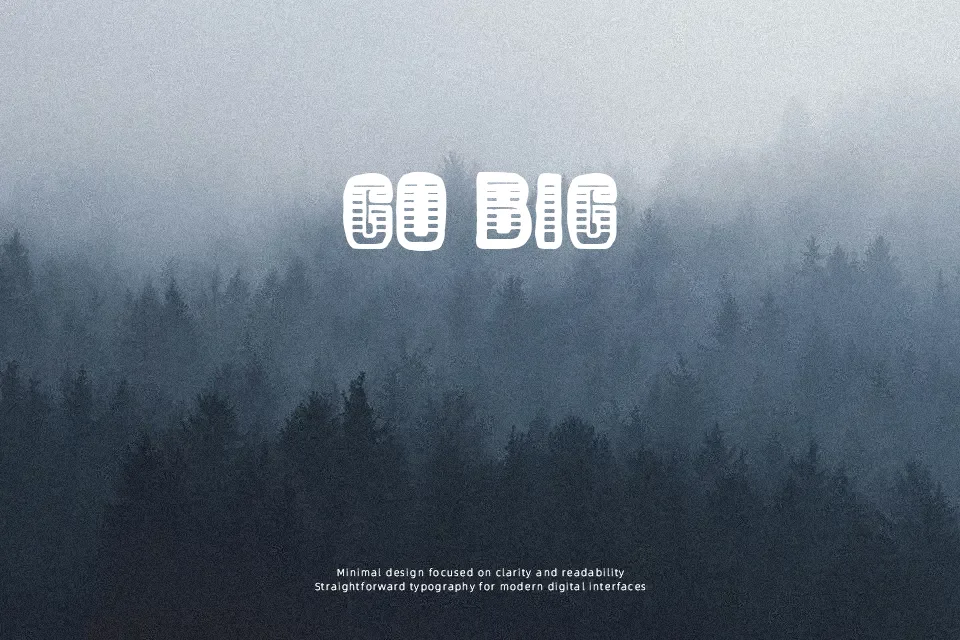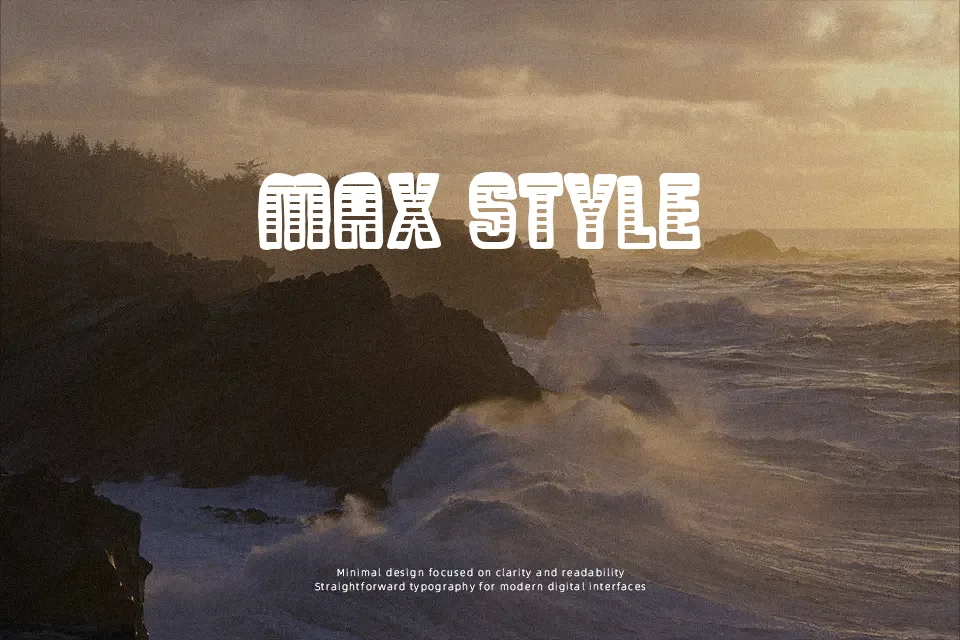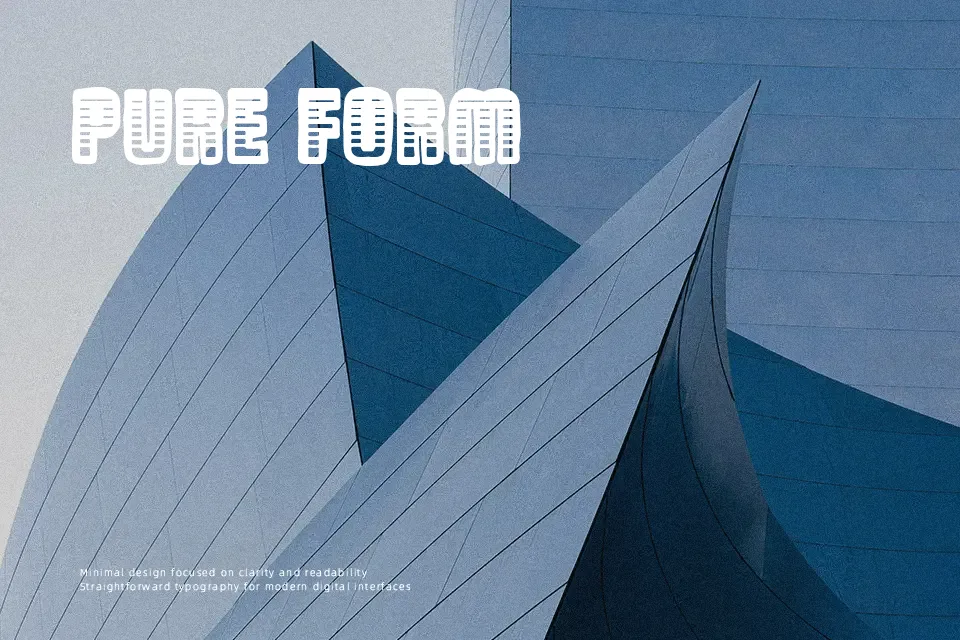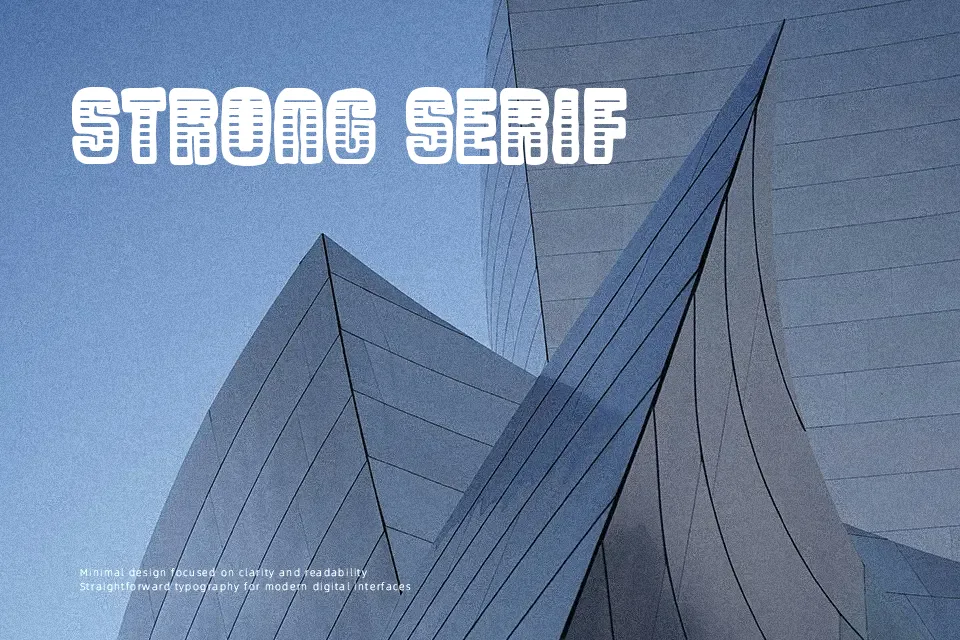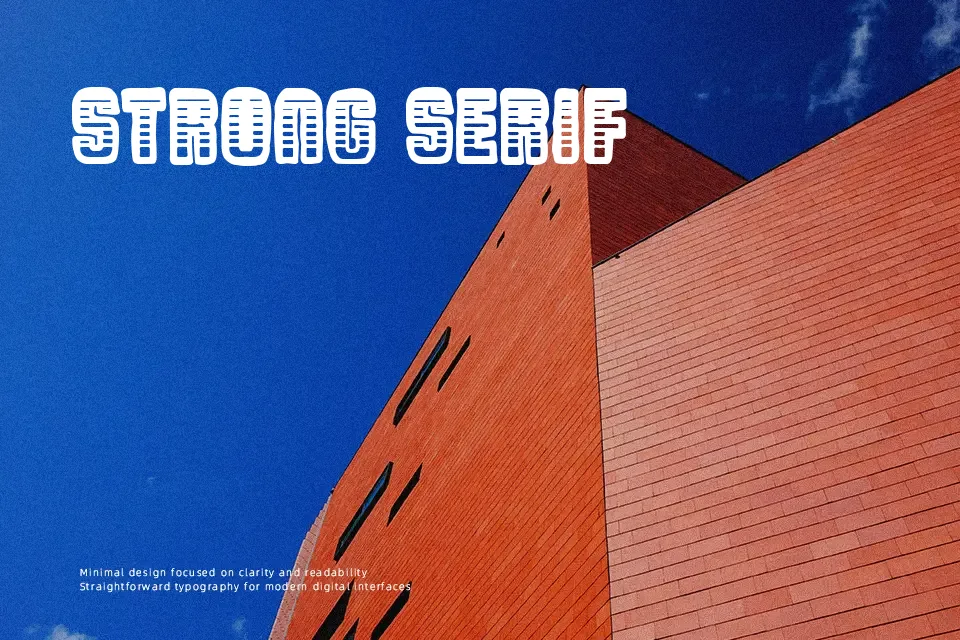
Touristic Chaos Font
Touristic Chaos Font features an eccentric decorative structure defined by solid, heavyweight strokes and unexpected ornamental cutout details within each glyph. The letterforms display wide, grounded proportions paired with deliberate, tight spacing that produces a dense typographic texture. Uppercase characters exhibit strong visual weight, ensuring high readability when deployed across oversized exhibition graphics, album jackets, or conceptual apparel branding. However, intricate internal geometries and dense forms severely reduce legibility at small sizes, making the typeface unsuitable for continuous editorial body text or technical layouts. The design performs with the greatest authority when treated as an isolated display accent rather than a functional text face.
Best For: travel event posters, album cover titles, exhibition headlines, streetwear graphics
Not Ideal For: long editorial paragraphs, mobile application interfaces, legal documentation, compact data tables
Perfect for advertising, branding, and headline, with a artistic and decorative style.